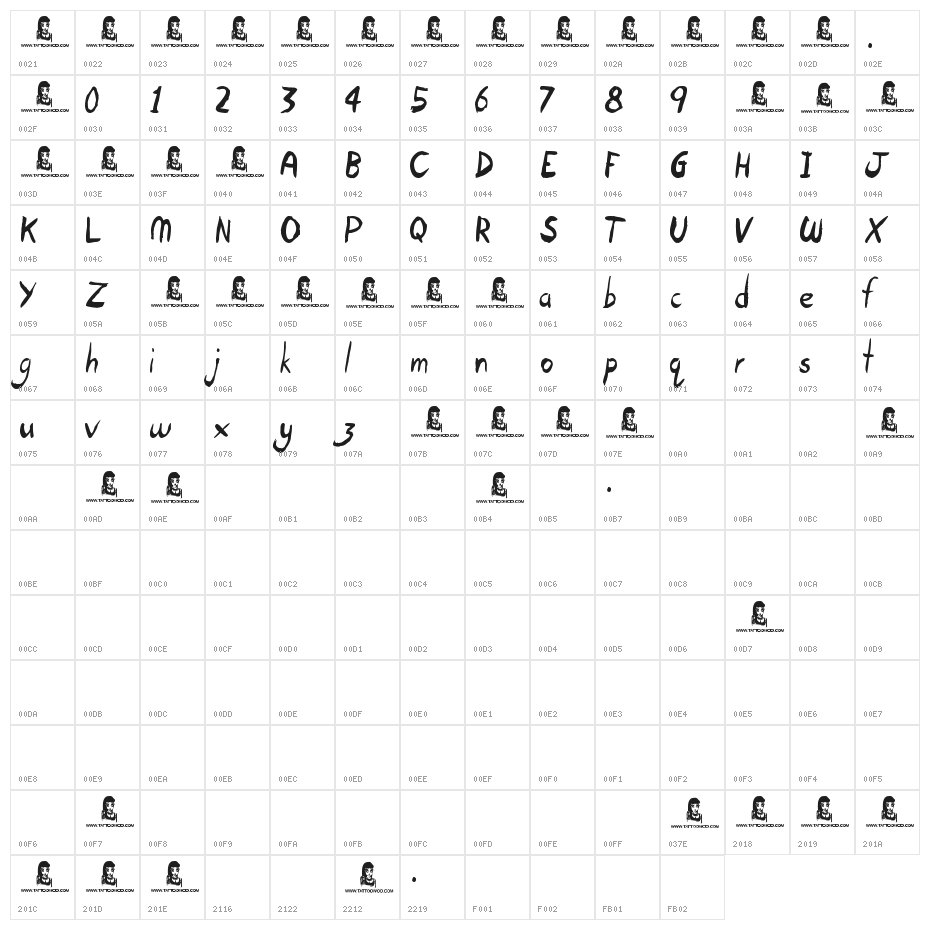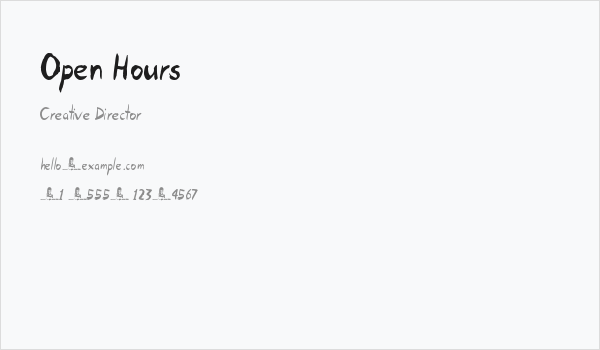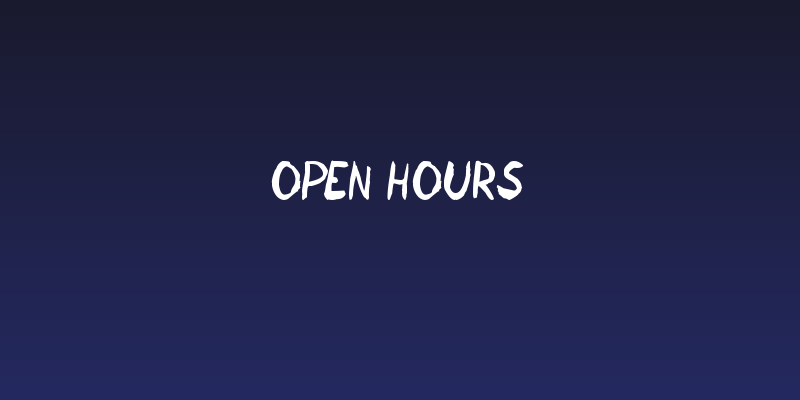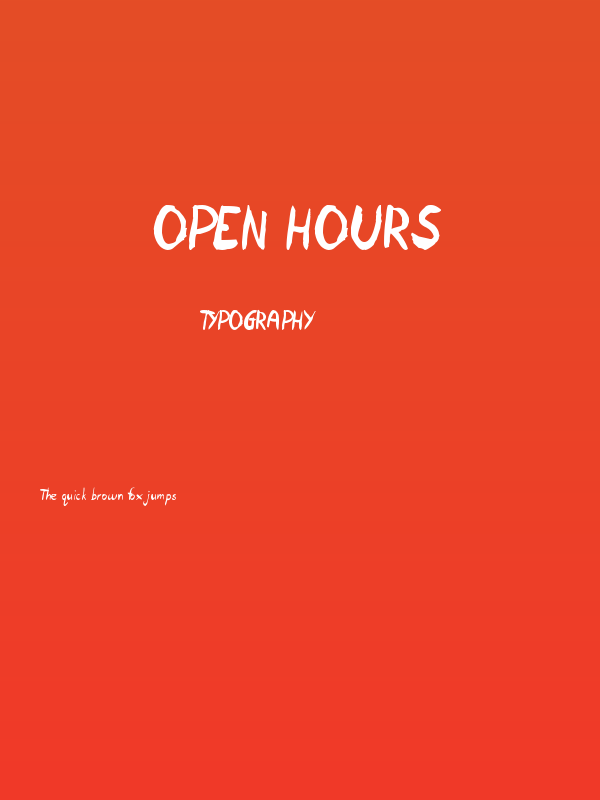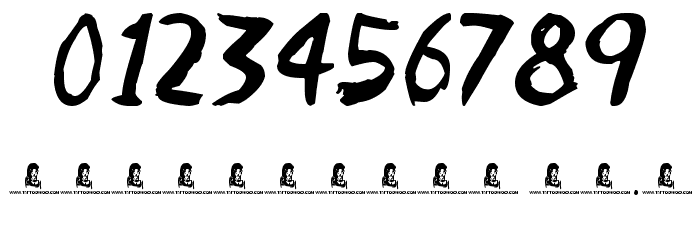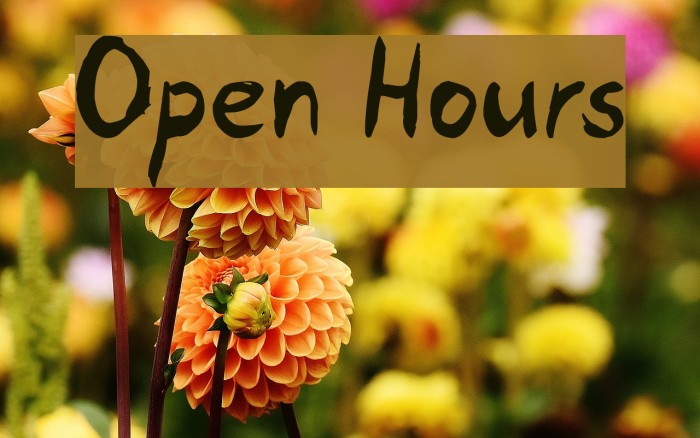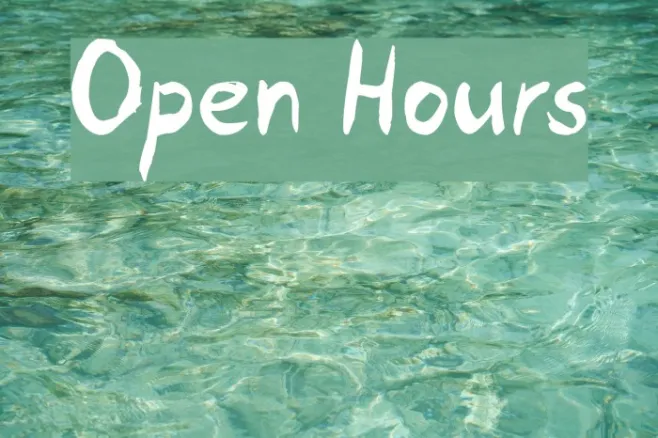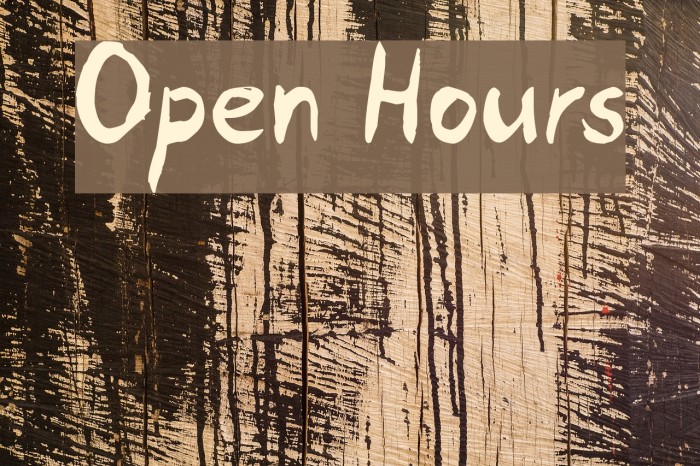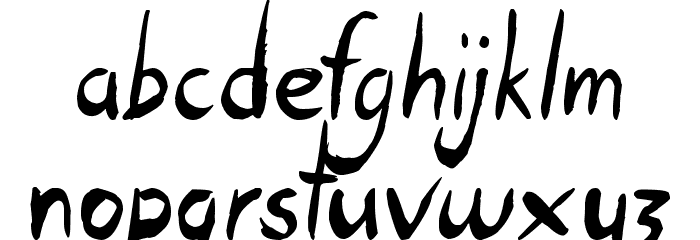
Open Hours Font
Open Hours Description
This font exhibits a dynamic and expressive handwritten style, characterized by its bold and fluid strokes. The uppercase letters are slightly irregular, giving a casual and artistic feel, while the lowercase letters maintain a consistent flow with a touch of whimsy. The numbers and special characters follow the same energetic style, making the font suitable for creative and informal applications. Its brush-like appearance adds a personal touch, making it ideal for projects that require a human element. The overall design is both playful and impactful, capturing attention with its unique charm.